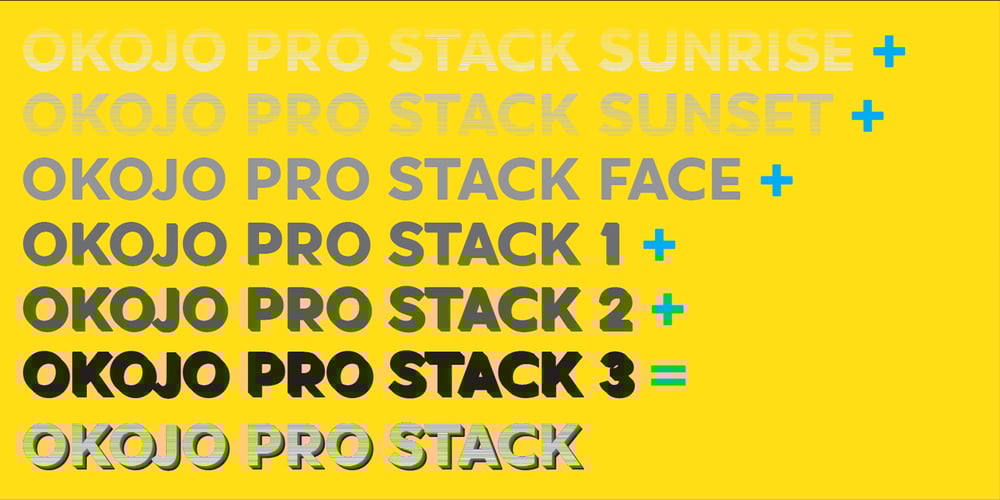
Okojo Pro Stack
Okojo Pro Stack font
Okojo Pro Stack Font Family was designed by Ian Lynam and published by Wordshape. Okojo Pro Stack contains 6 styles and family package options. Once upon a time, a young man with scribbles on his face rapped the words, “Stacks on stacks”. Prophetic. Engaging. And more than anything―*interesting*! OkojoPro Stack is a family of six stackable typefaces: three layers of extrusion, a solid face, and two ornamental stepped layers―Sunset and Sunrise. You can use the different type faces together to create ornamental headline typography with thousands of different possible combinations. Bonus: The Face font is a rugged bold typeface that has been spaced and kerned for text typesetting. Combine this family with the Okojo Pro Family of typefaces to create exquisite, eye-catching layouts for print or screen. Okojo Pro Stack: Stack ’em up!